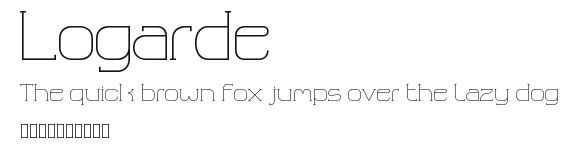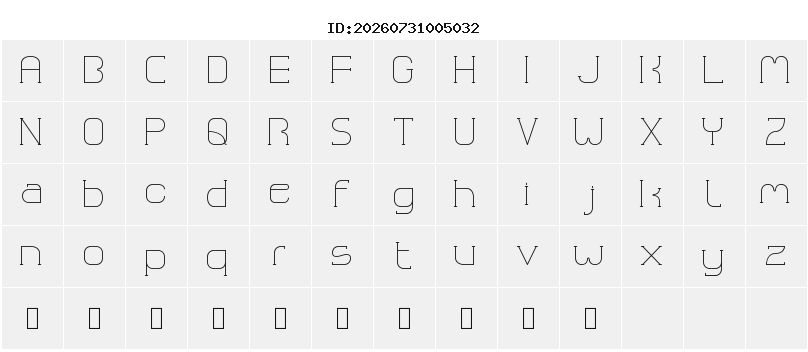
Logarde Preview
• Font Name: Logarde
• Font Style: Thin
• Font ID: FontForge 2.0 : Logarde : 6-4-2009
• Full Font Name: Logarde
• PostScript Name: Logarde-Thin
• Character Count: 55
About Logarde.ttf
Logarde.ttf is a modern, elegant sans-serif font designed for ultimate readability and visual harmony. Perfect for branding, headlines, web design, and print materials.